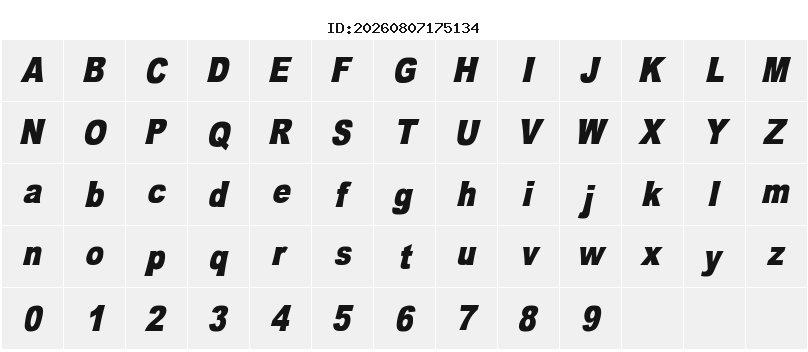
OMNIBLACK Preview
• Font Name: OMNIBLACK
• Font ID: OMNIBLACK Italic:Version 1.00
• Full Font Name: OMNIBLACK Italic
• Version: Version 1.00 July 16, 2014, initial release
• PostScript Name: OMNIBLACK-Italic
• Designer: Mehmet Abacı
• Manufacturer: StudioTypo
About OMNIBLACK.otf
OMNIBLACK.otf is a modern, elegant sans-serif font designed for ultimate readability and visual harmony. Perfect for branding, headlines, web design, and print materials.